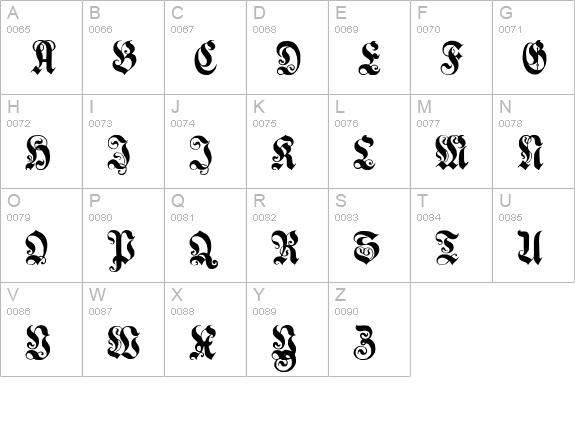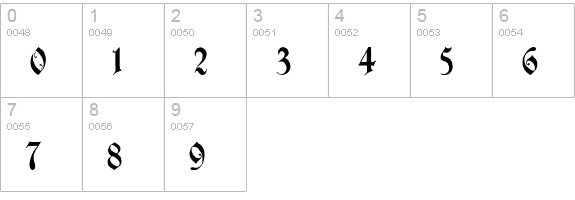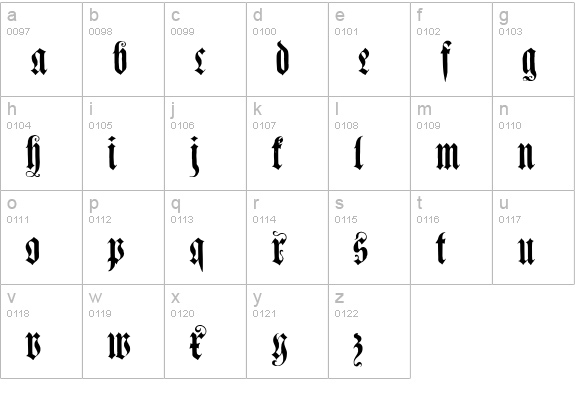
Genzsch Et Heyse Alternate Font Details
Genzsch Et Heyse Alternate font is a beautifully crafted typeface that exudes elegance and sophistication. Its distinctive alternate characters add a unique touch to any design project, making it stand out from the crowd. This font is perfect for creating eye-catching headlines, logos, invitations, and more. The best part about Genzsch Et Heyse Alternate font is that it is free to download at FontsMarket.com. This means you can easily access this stunning font and use it in your personal or commercial projects without any cost. Embrace the beauty and versatility of Genzsch Et Heyse Alternate font today and elevate your designs to the next level.